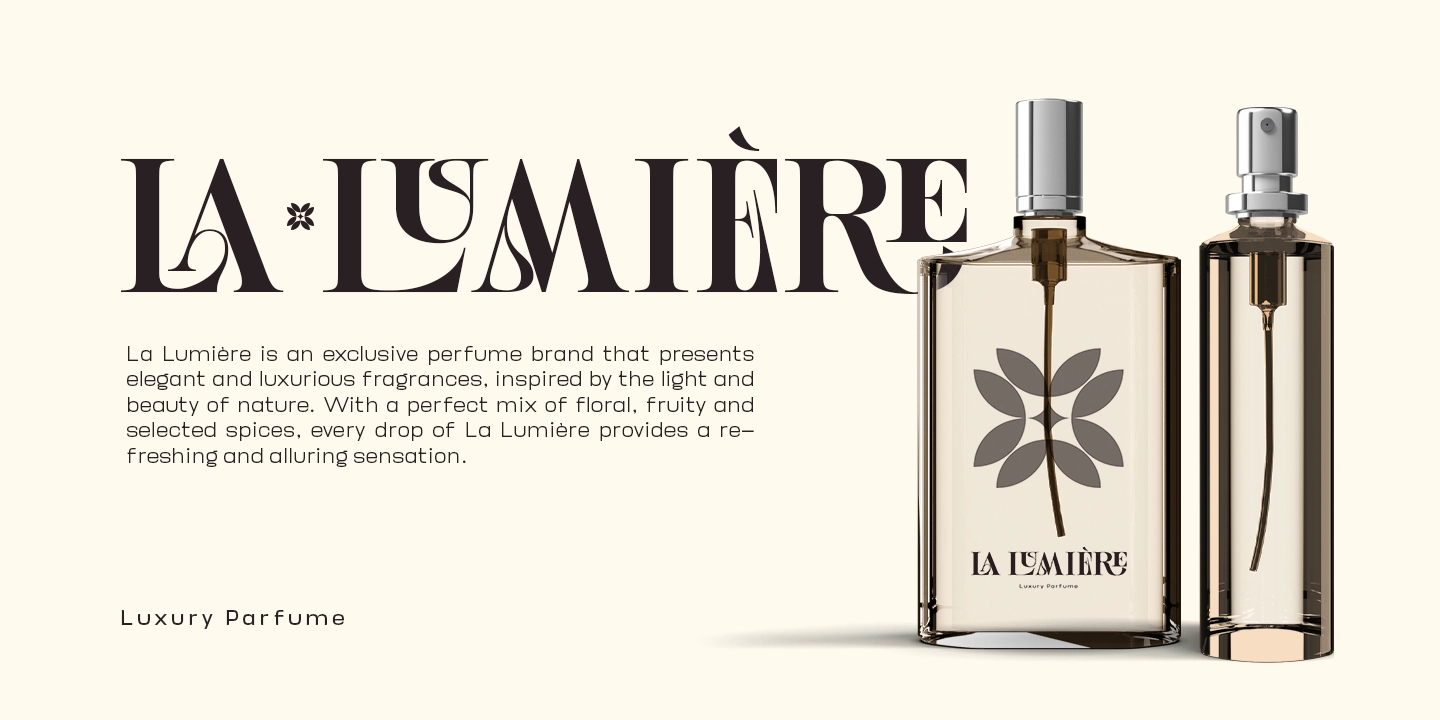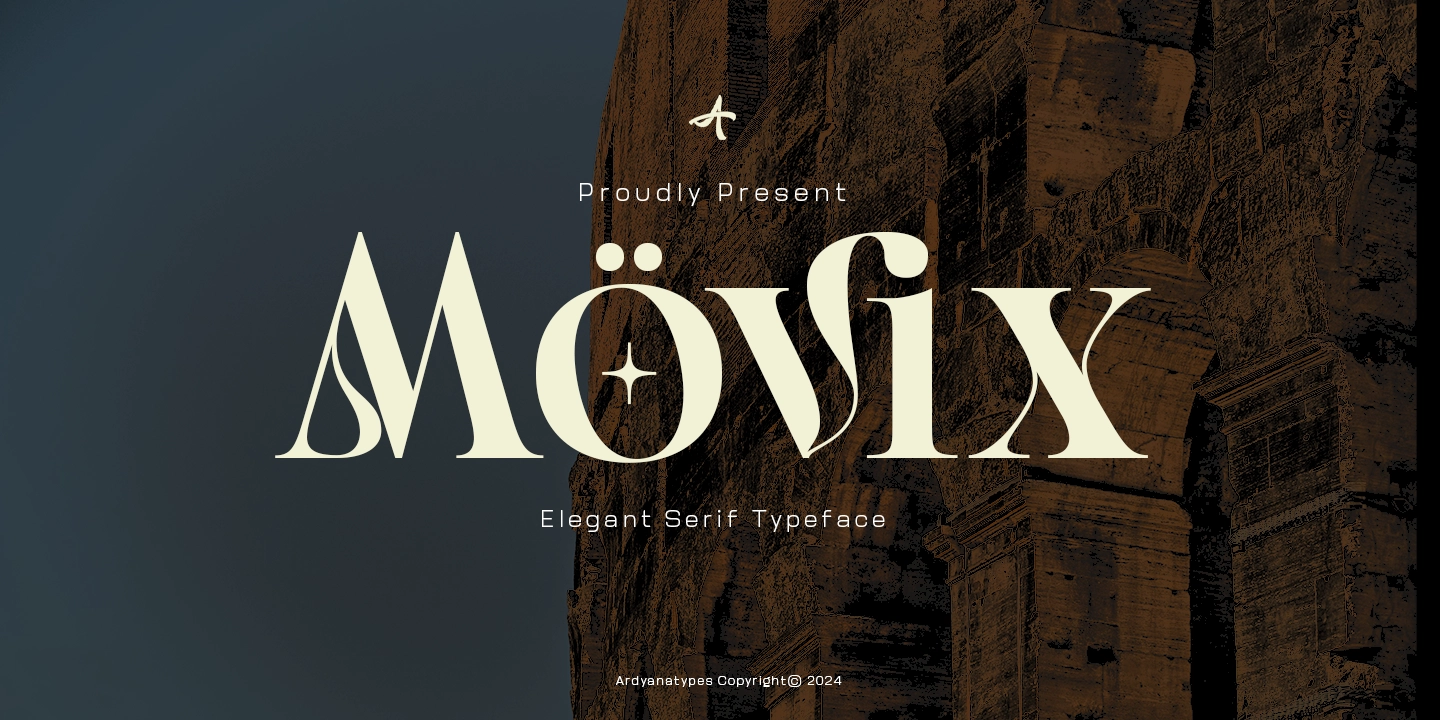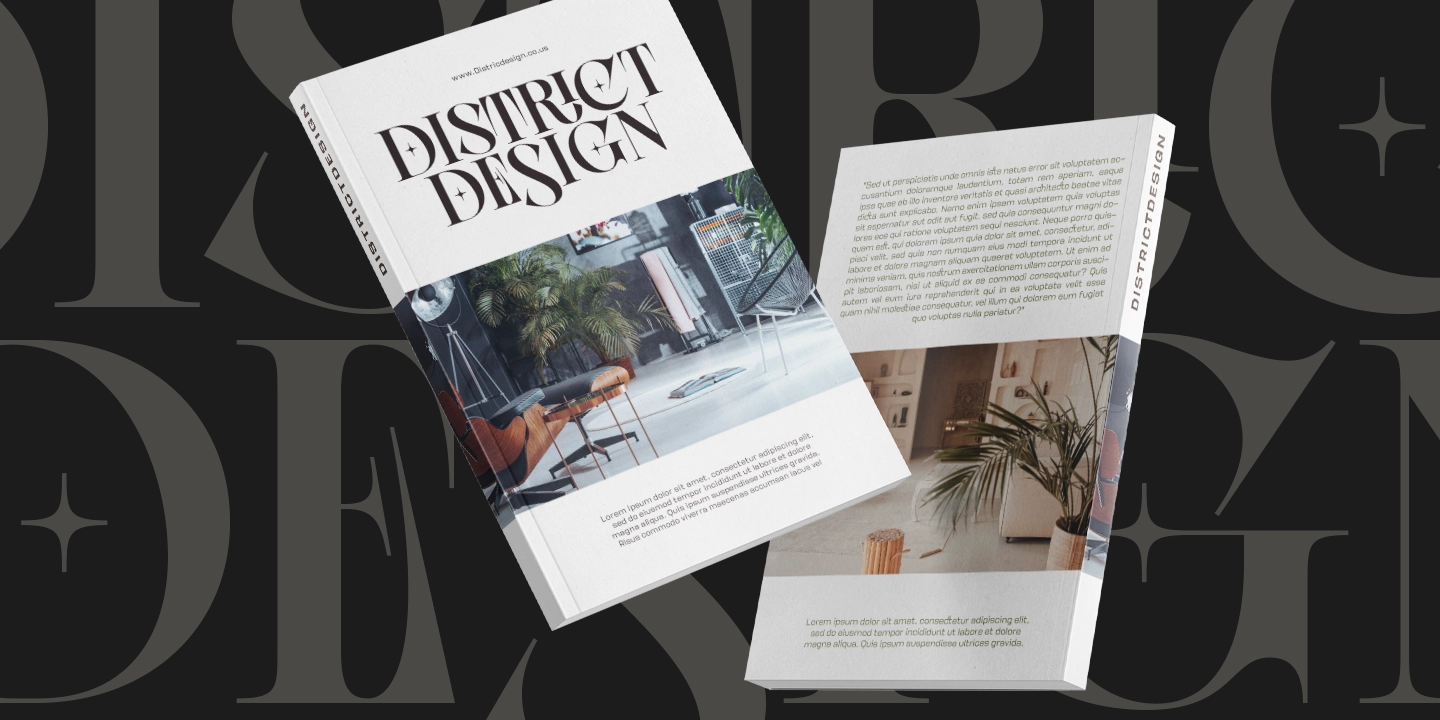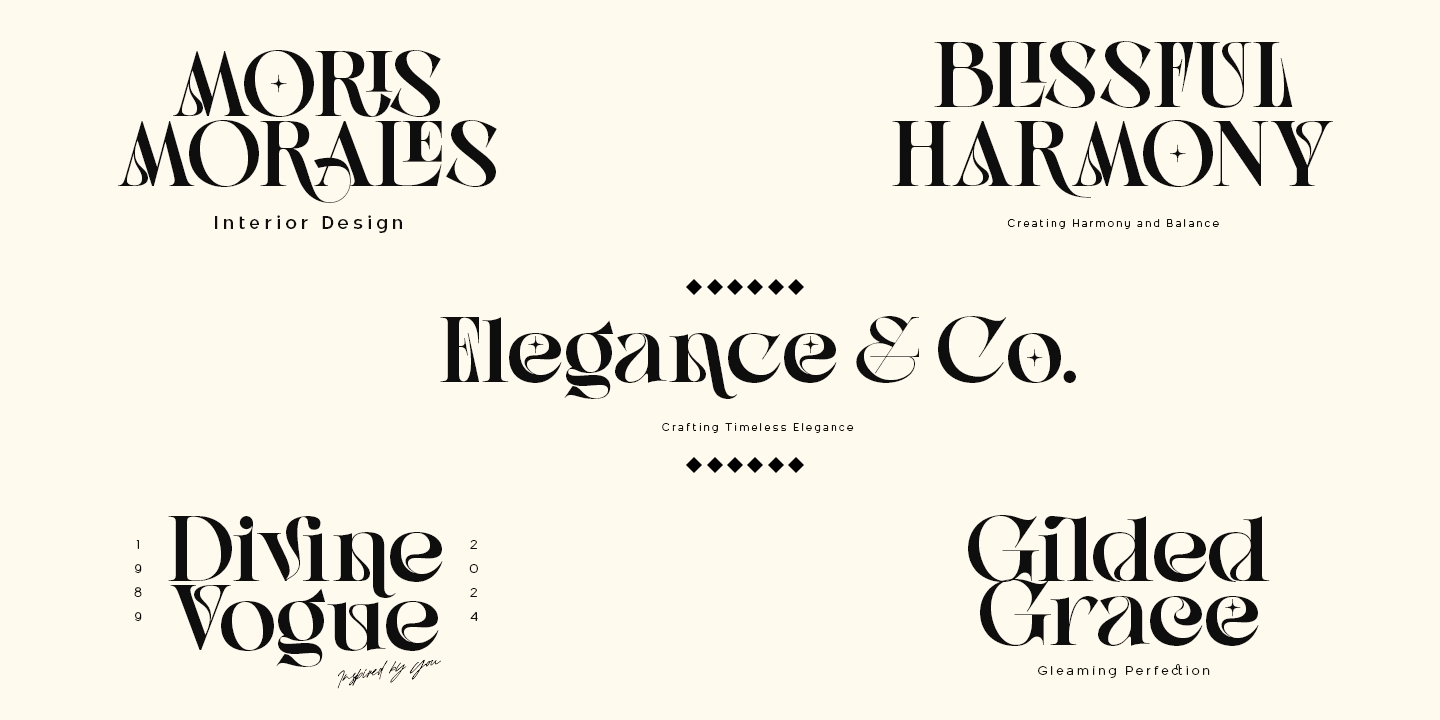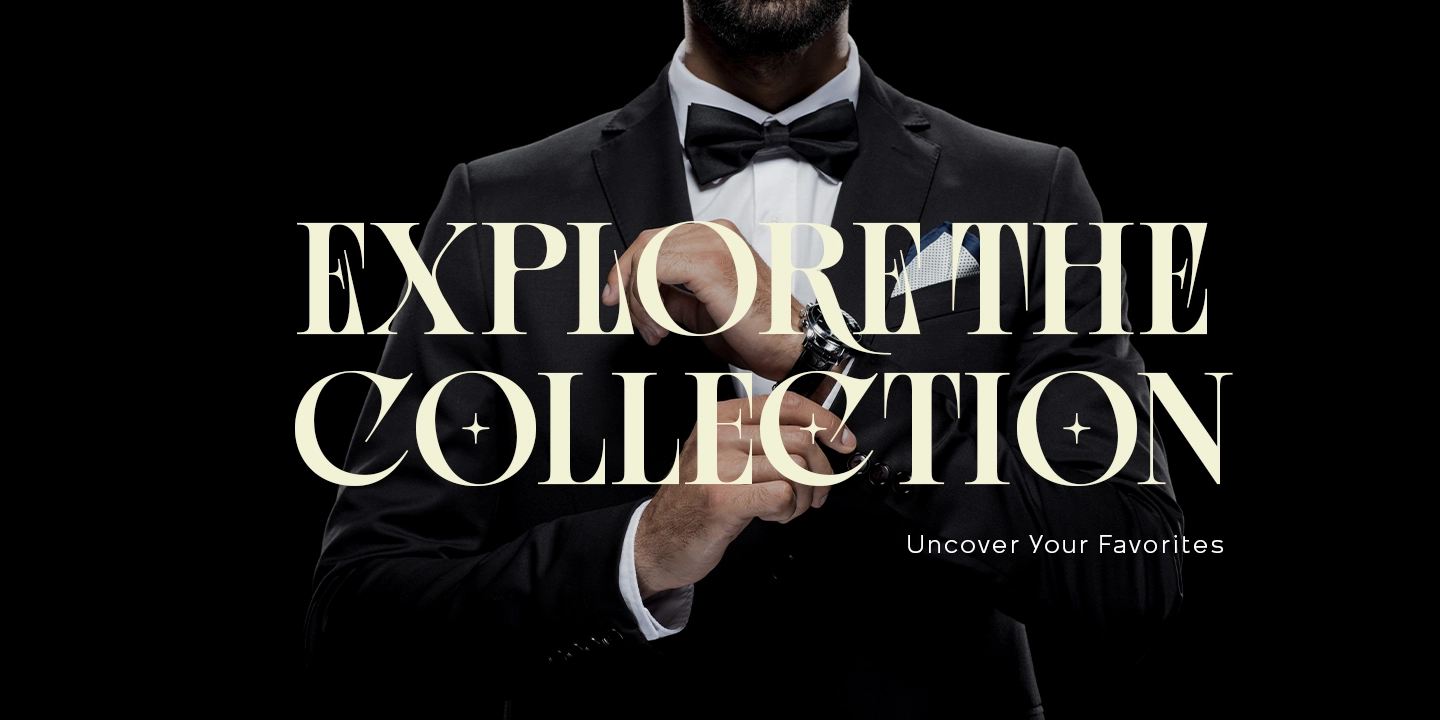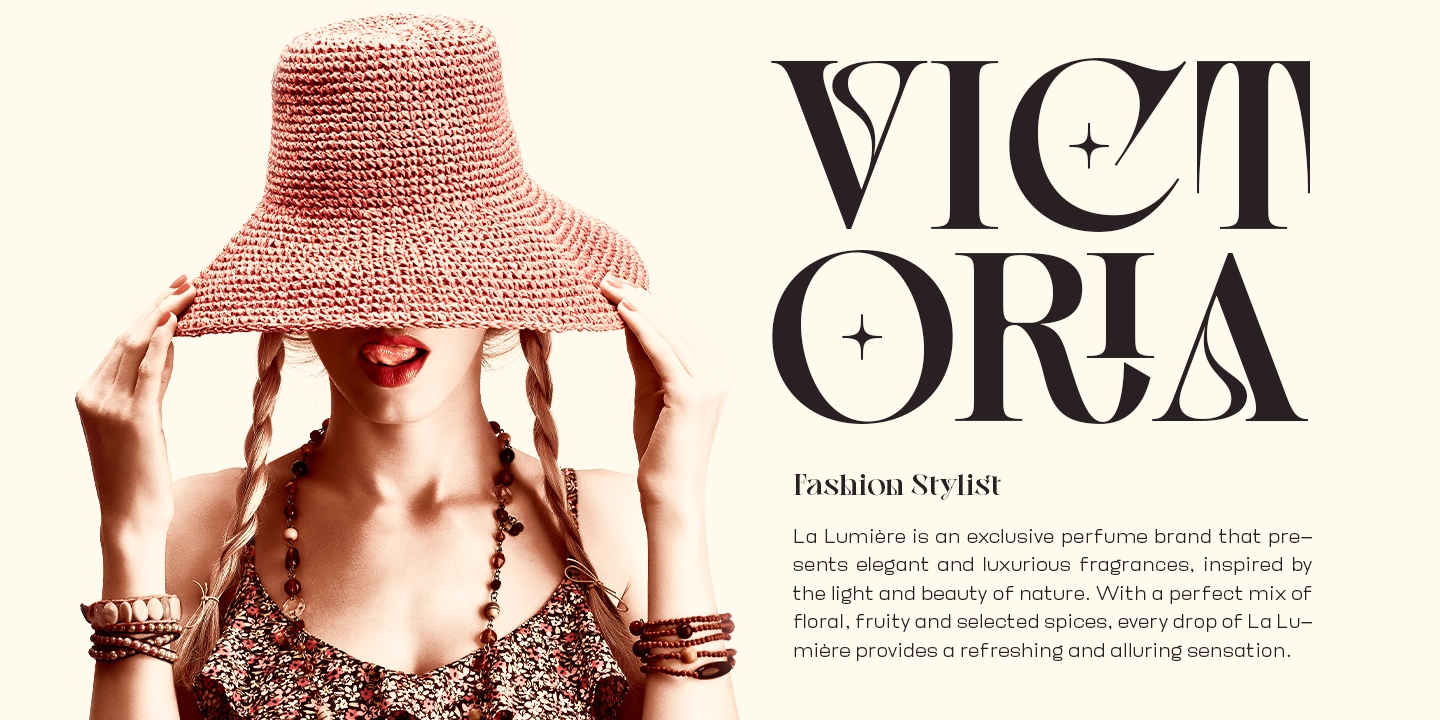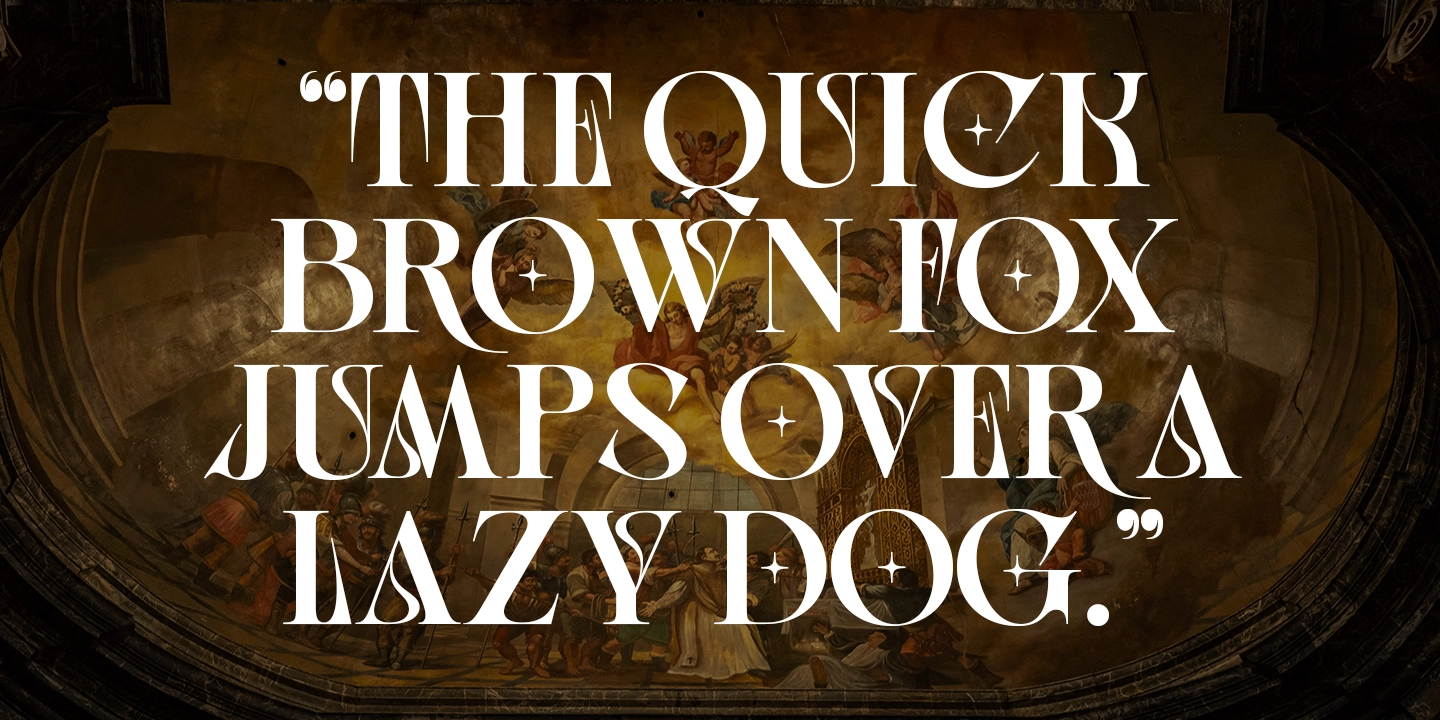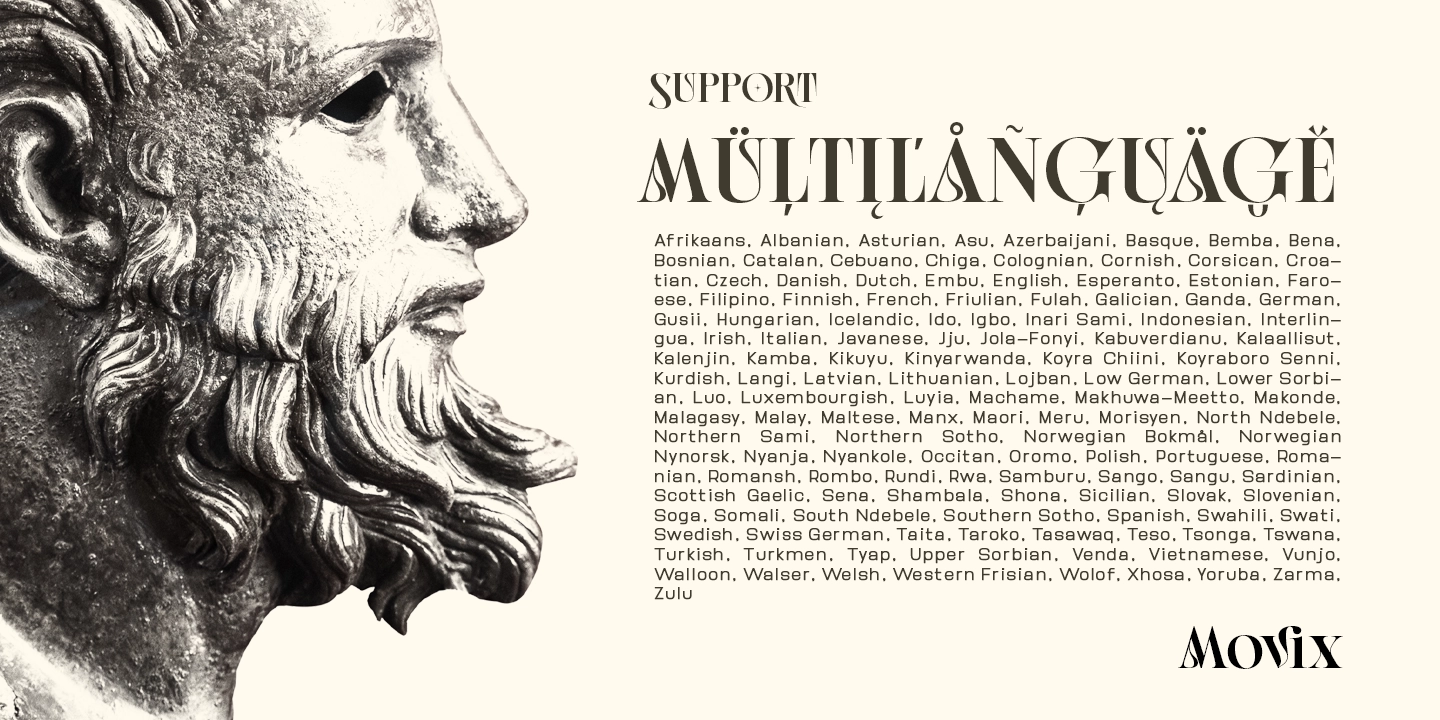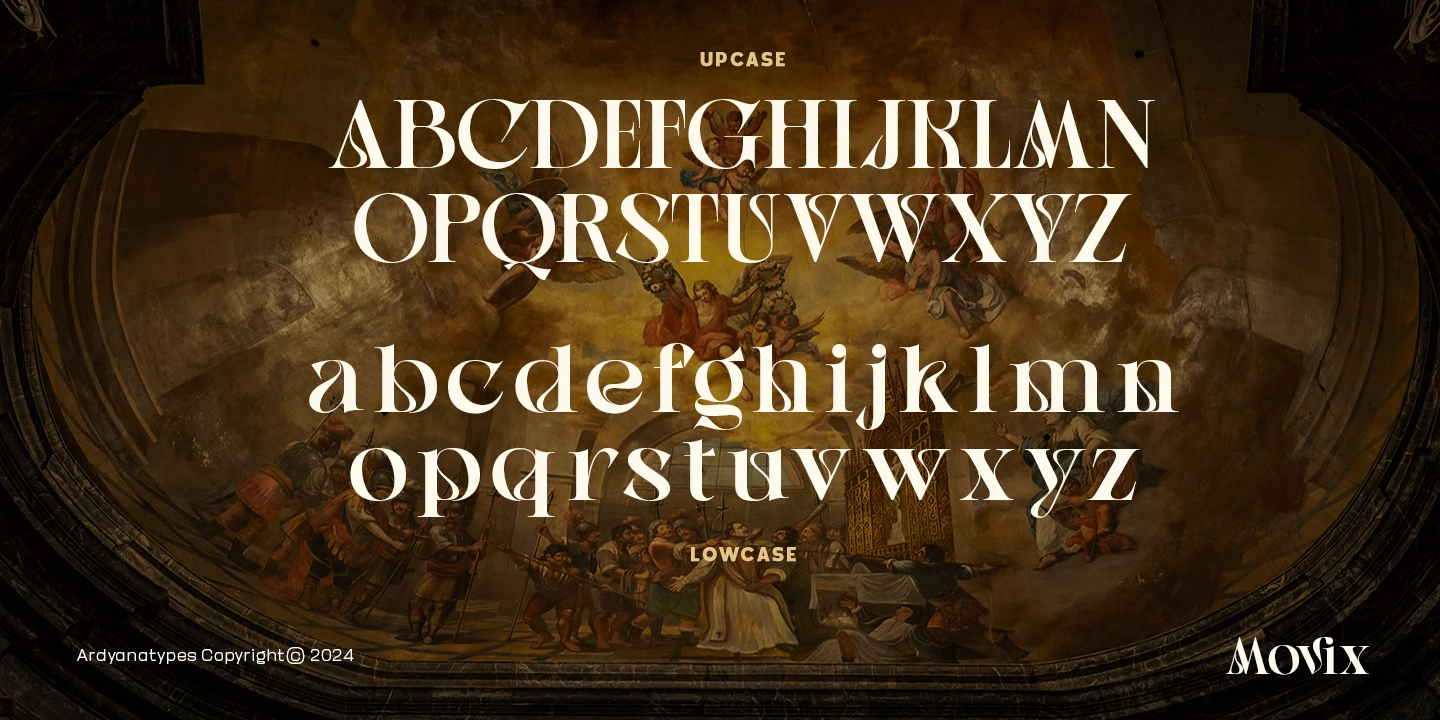
Movix
Movix is a serif font that combines classic elegance with a modern touch, creating a unique and captivating look. Inspired by old-fashioned scripts, Movix offers an elegant feel while remaining relevant for today's era.
Equipped with OpenType features such as Ligature and Alternates, Movix provides flexibility in letterform variations, allowing users to customize the style as needed. Additionally, Movix supports multiple languages, making it highly versatile for various creative projects.
This font is ideal for large-scale projects such as movie titles, book covers, album covers, posters, marketing media, and much more. With Movix, every project will stand out with strong character and timeless elegance.
• AS AS
• Ch Ch
• KE KE
• KI KI
• KO KO
• KU KU
• LA LA
• LE LE
• LI LI
• LO LO
• LU LU
• NT NT
• RA RA
• RE RE
• RI RI
• RO RO
• RU RU
• gi gi
• ib ib
• ih ih
• ik ik
• il il
• oo oo
• vi vi
• wi wi